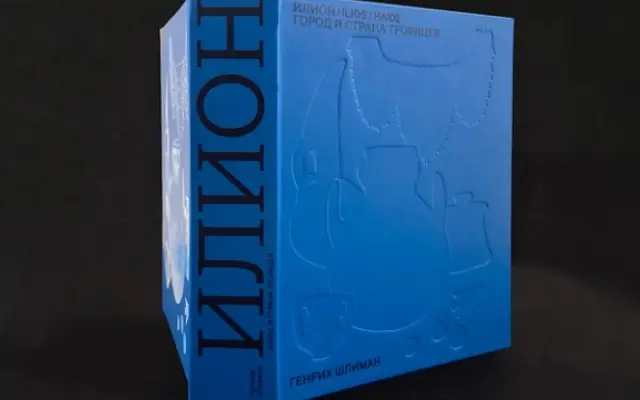
Antonym
Brownfox · Delphine Lejeune, Diana Zinchenko
A text-oriented sans in seven weights with Latin and Cyrillic support, accompanied by a monospaced variant.
Antonym covers 72 languages across Latin and Cyrillic scripts, offered in seven weights each with italic companions. A dedicated Mono variant extends its usefulness into code or tabular contexts. Designed by Delphine Lejeune and Diana Zinchenko under the Brownfox label, it reads as a workmanlike text face suited to body copy across European languages.
The specimen text and weight range suggest a text-oriented humanist sans with accompanying mono variant; the italics and broad language support reinforce a workhorse classification rather than display or geometric.